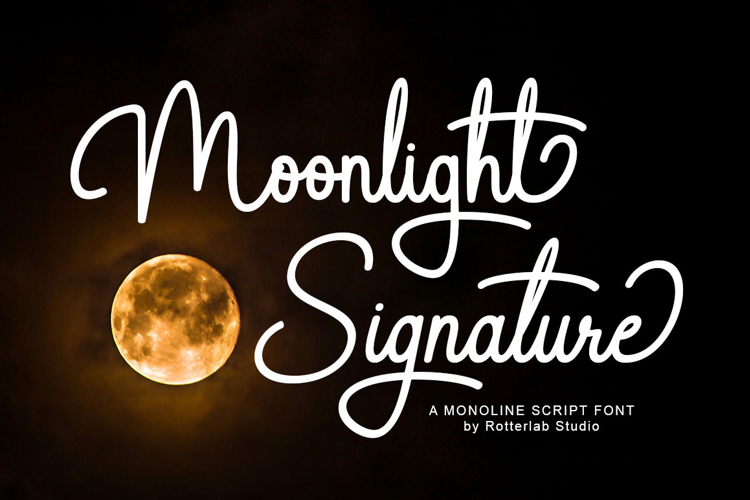
Introducing Moonlight Signature, a classic, handwritten signature font with a monoline flair, perfect for weddings, handwritten signature logos, modern branding, stylish websites, social media graphics, and more! Moonlight Signature is a no frills font, but it's elegant in its simplicity.